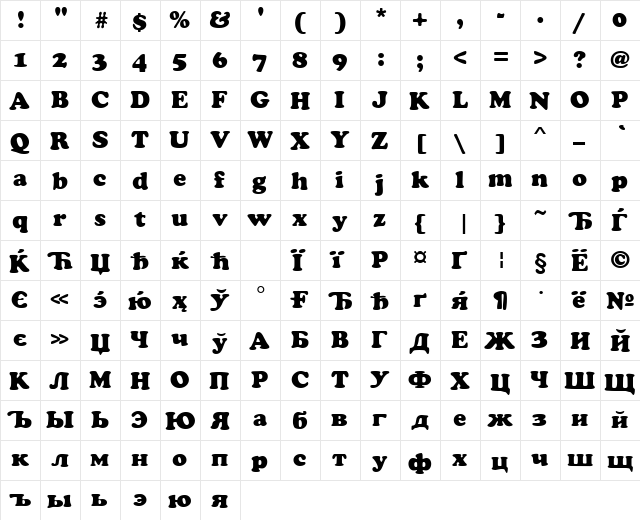
CyrillicCooper Normal Font Preview
CyrillicCooper Normal
Design Context for CyrillicCooper Typeface
CyrillicCooper takes a measured approach to typography — its balanced proportions and neutral character make it a reliable workhorse for both digital and print work.